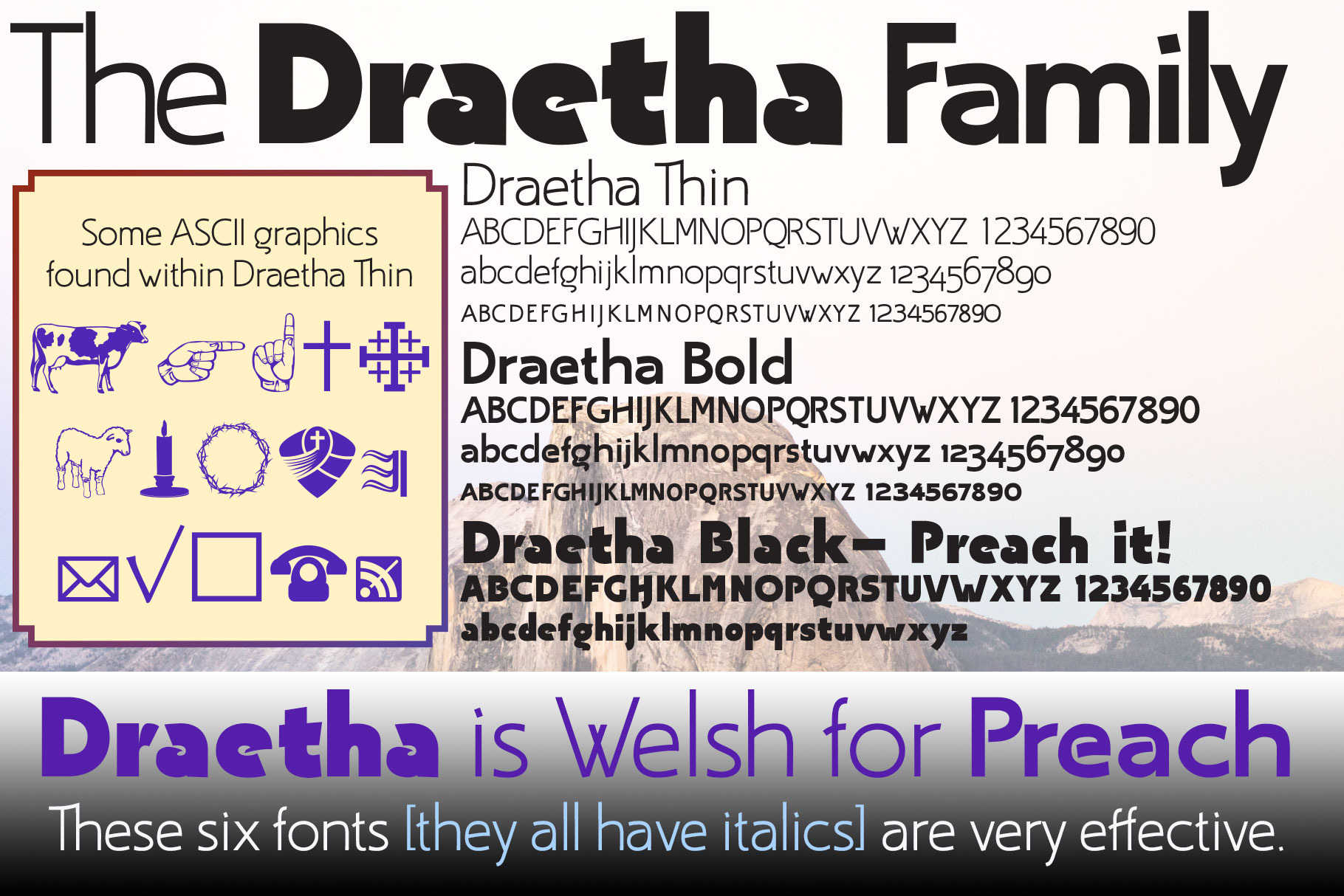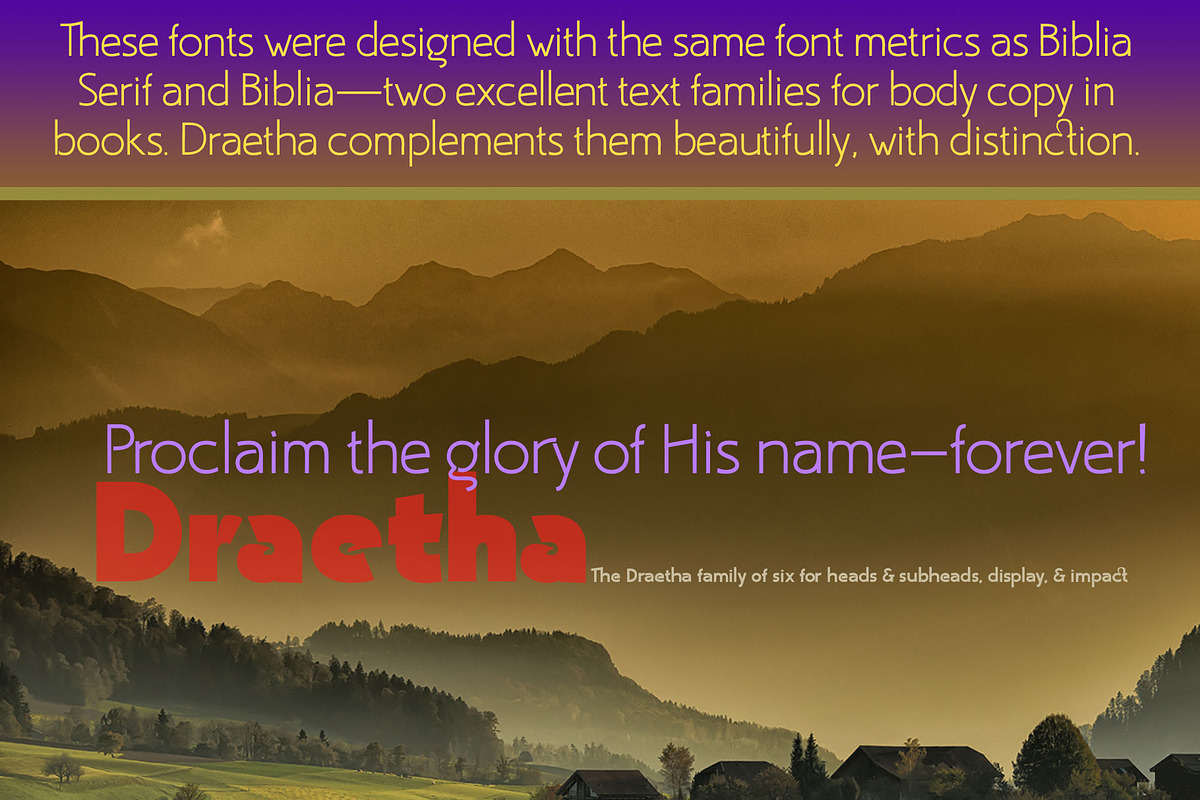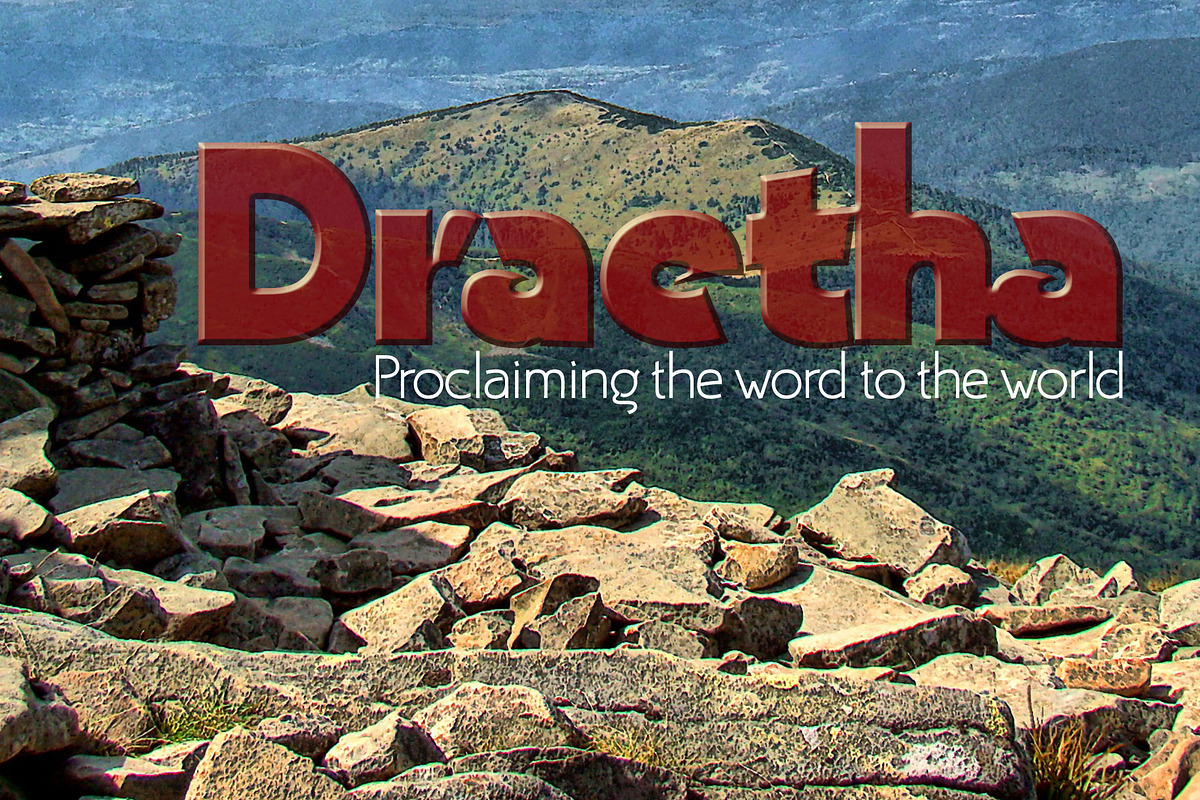
Draetha six strong sans fonts
Draetha is the 6-font companion sans font family to work with Biblia and Biblia Serif. It is a monoline sans with a clear style. It also has an outrageous Ultra version which pushes monoline to the extreme of boldness. It has the same font metrics as Biblia and Biblia Serif. The only compromise is that Ultra is too extreme to be able to provide small caps or oldstyle figures.
It is designed with text spacing, to work in text with Biblia and Biblia Serif. For heads and subheads, you will need to adjust the tracking. But it tracks well.